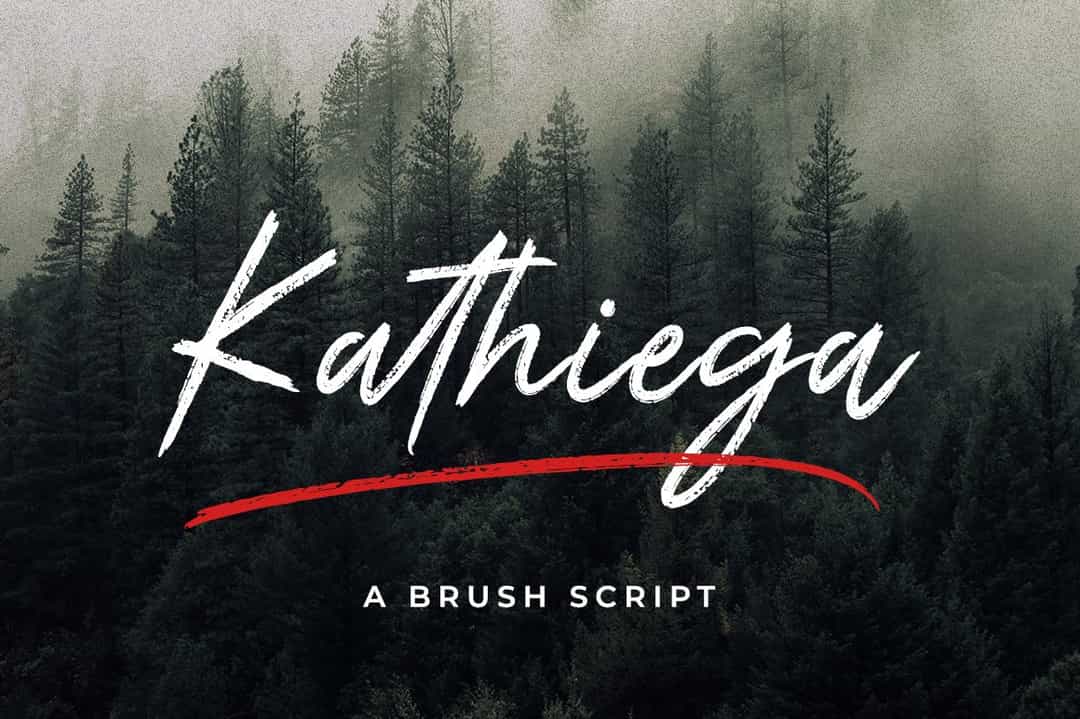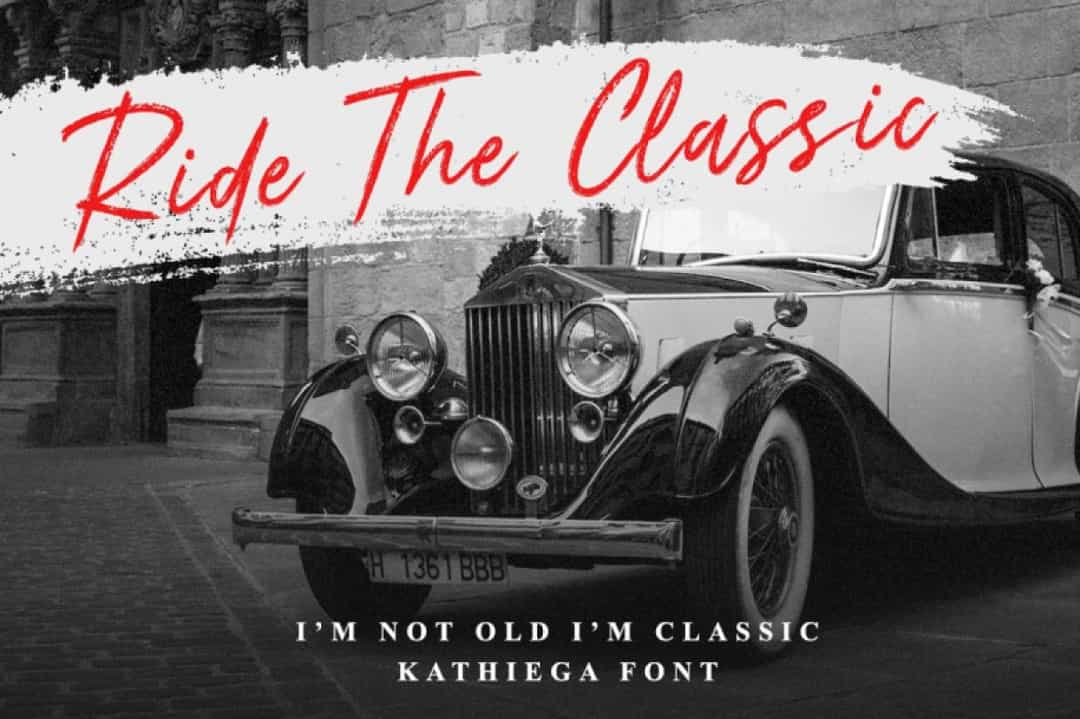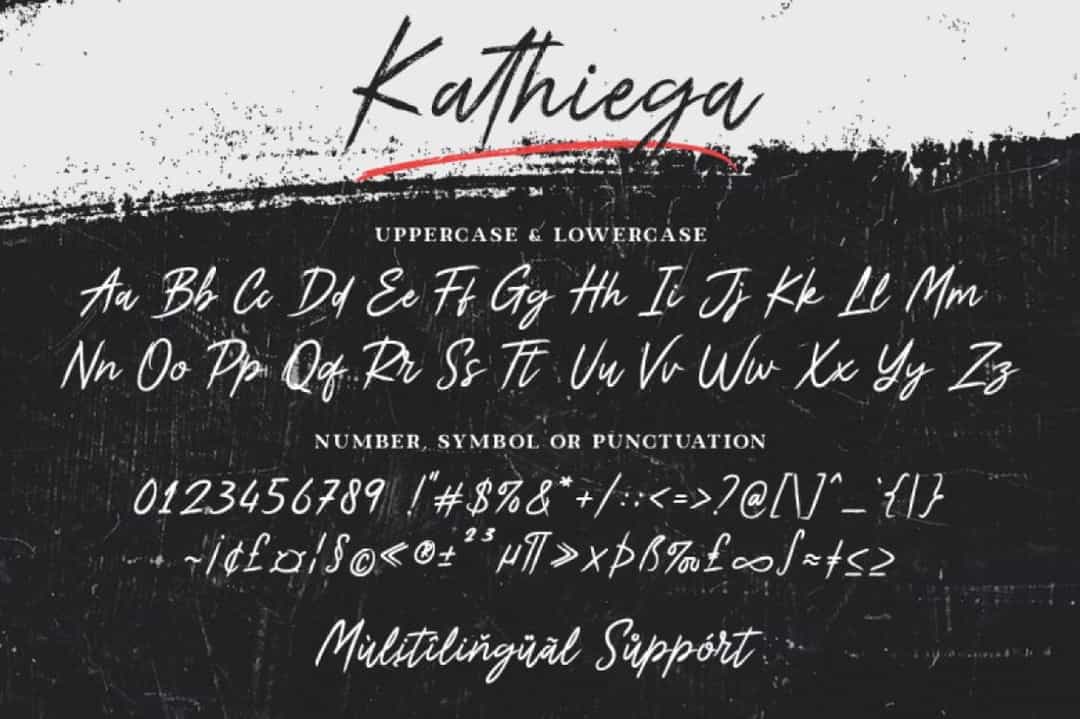
Kathiega is a handmade brush script font written with casual and natural lines that has been meticulously vectorized. Letters were formed using a brush before being scanned into a vector format and carefully vectorized for use.